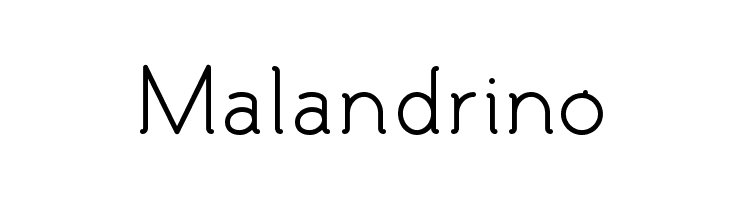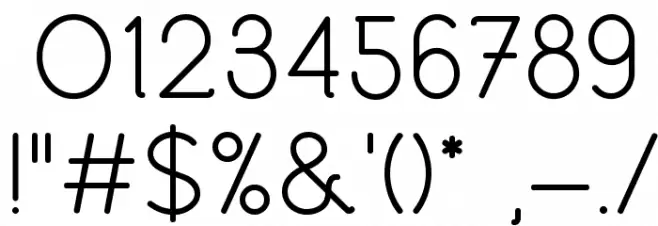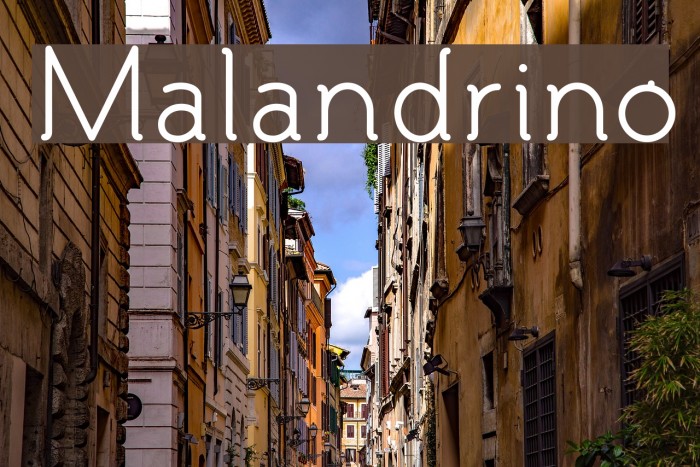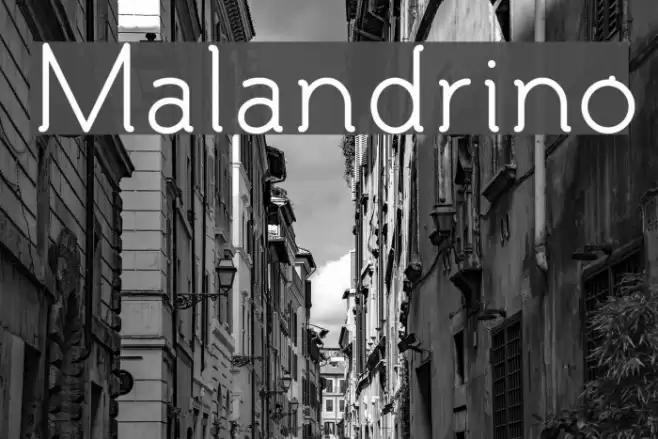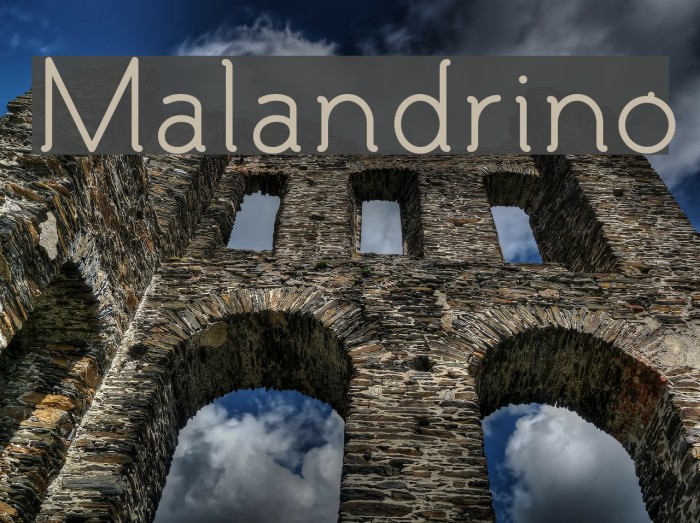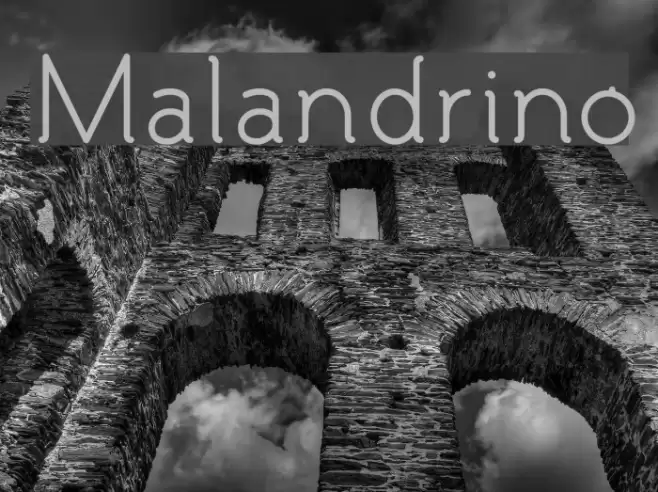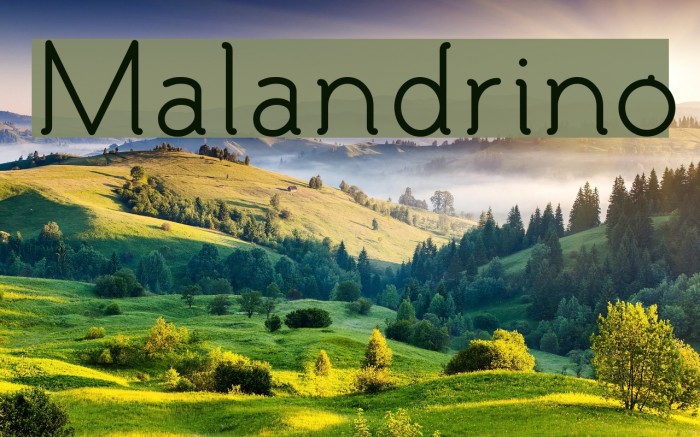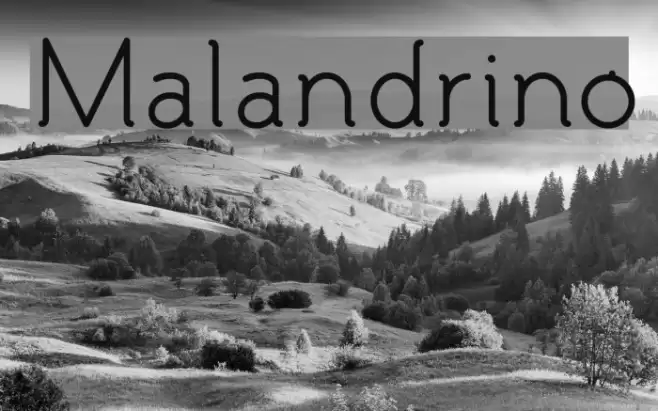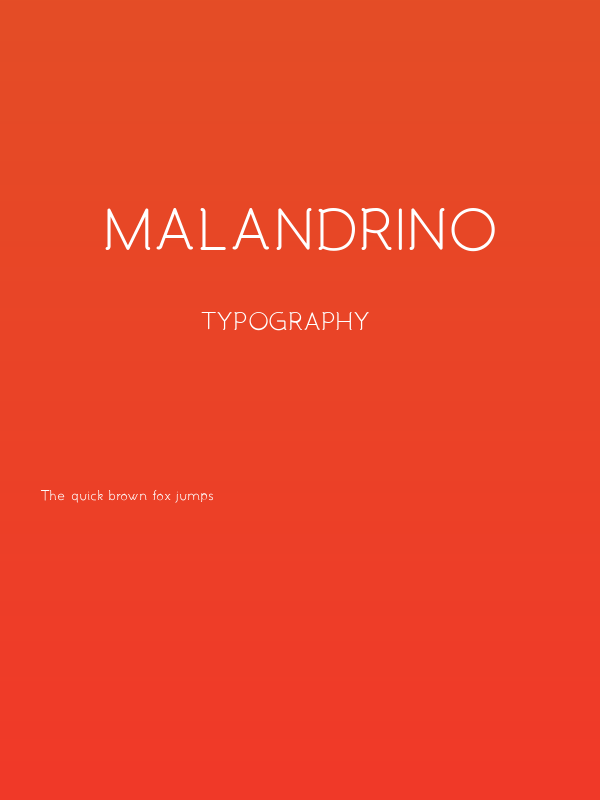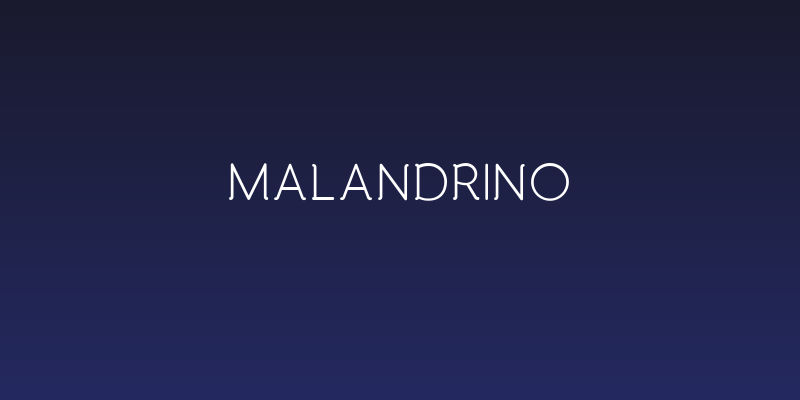
Malandrino Font
Malandrino Description
This font features a clean and modern design with a slightly playful touch. The characters are rounded and have a consistent stroke width, giving it a uniform appearance. The uppercase letters are tall and slightly narrow, while the lowercase letters maintain a harmonious balance with a friendly, approachable feel. The numerals are clear and easy to read, making them suitable for various applications. Special characters are well-integrated, maintaining the overall style of the font. This font is versatile and can be used in both digital and print media.
| Proposed Projects | Ideal for branding, web design, advertising, and editorial projects. |